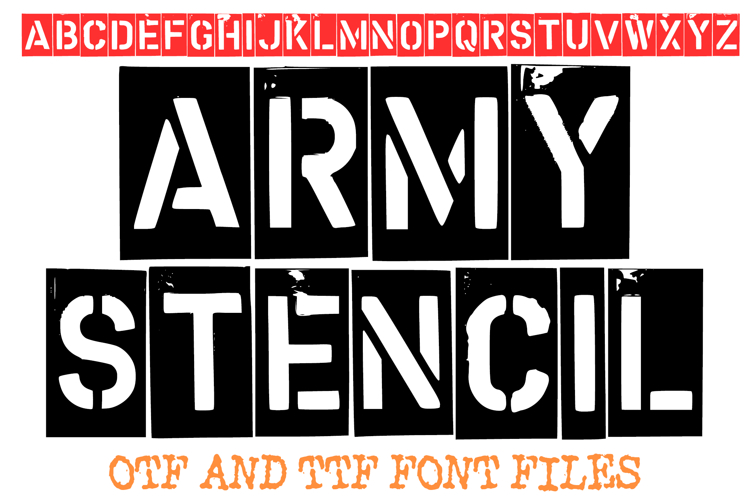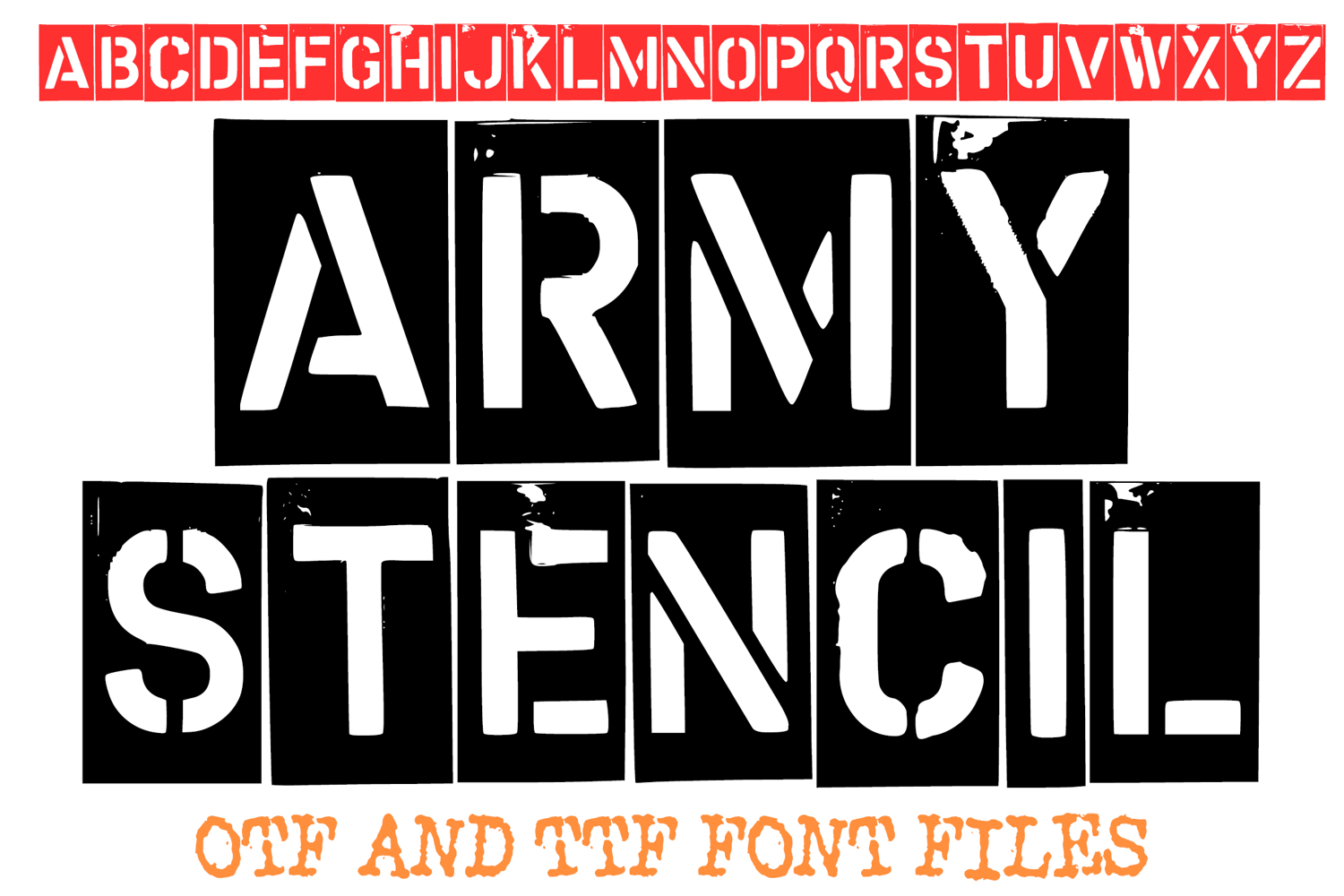
Army Stencil Military Lettering ABC Font Typography Text
The Army Stencil Font is a bold, rugged typeface created from real metal stencils, giving it an authentic and distressed military look. Perfect for designs that need a tough, industrial, or vintage feel, this font is ideal for posters, logos, t-shirts, packaging, signage, and DIY crafts.
With both OTF and TTF files included, this stencil-style lettering works seamlessly in popular design software. Great for military themes, army-inspired projects, survival graphics, retro packaging, and bold typography designs, the Army Stencil Font adds strength and character to any creative project.
Whether you’re designing for print, digital, or merchandise, this stencil typeface delivers that raw, battle-tested look every time.